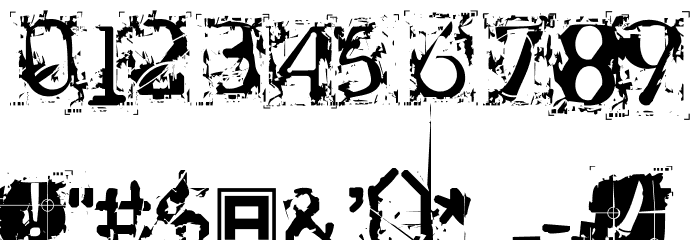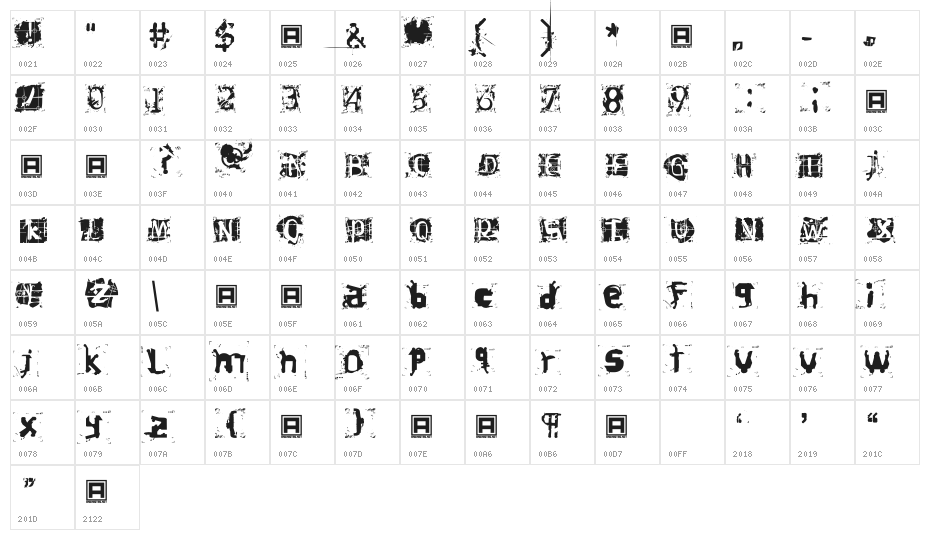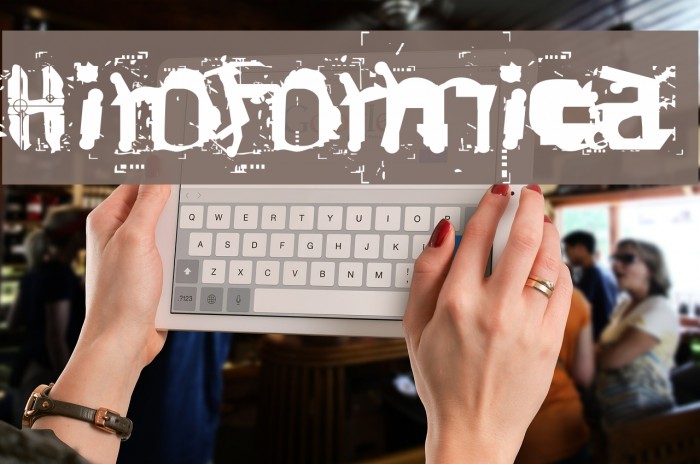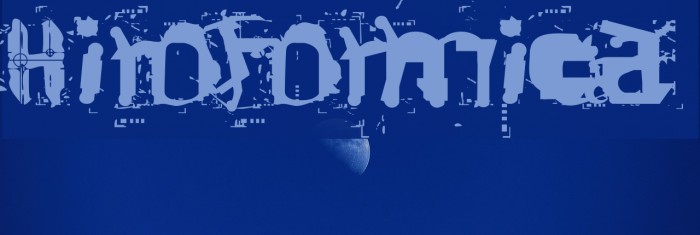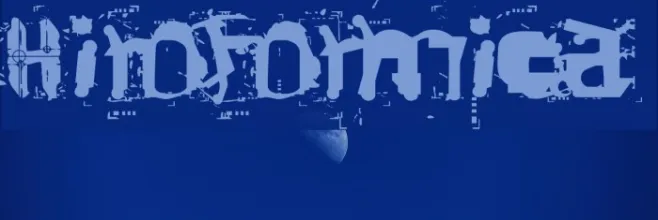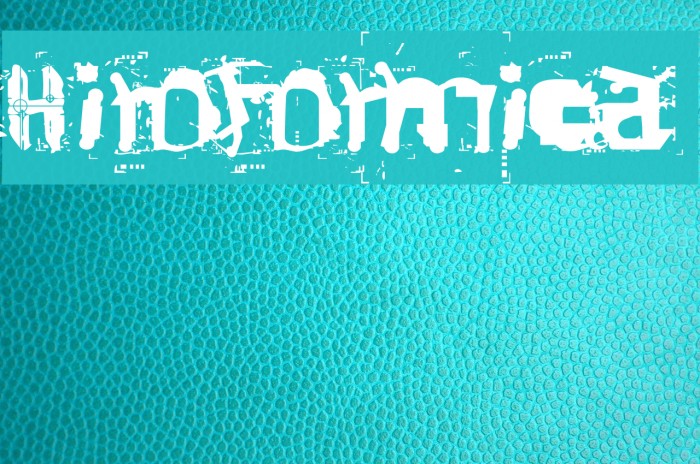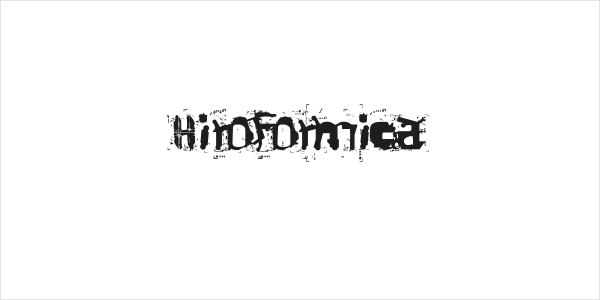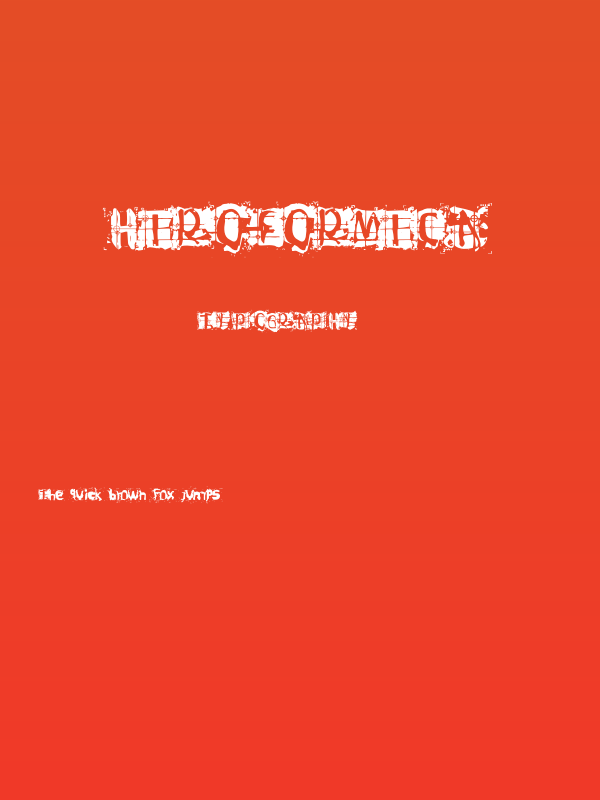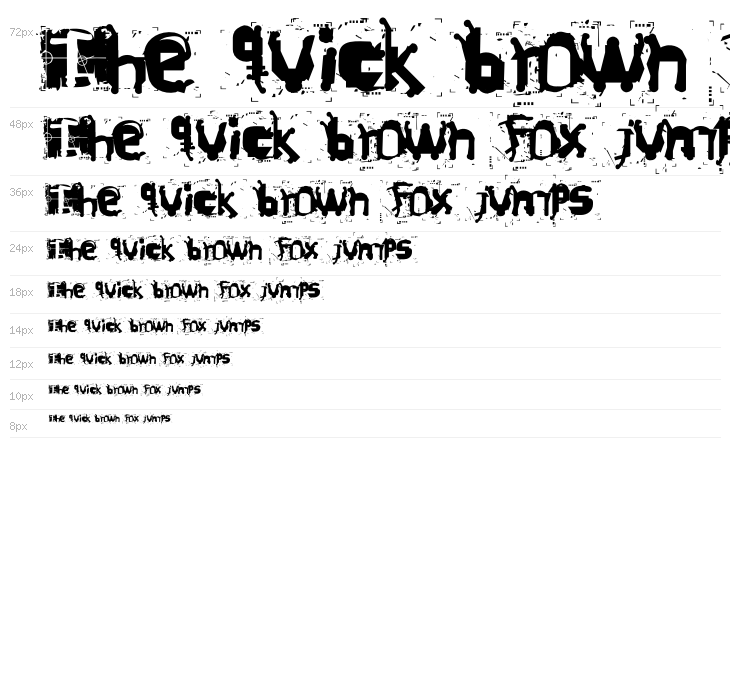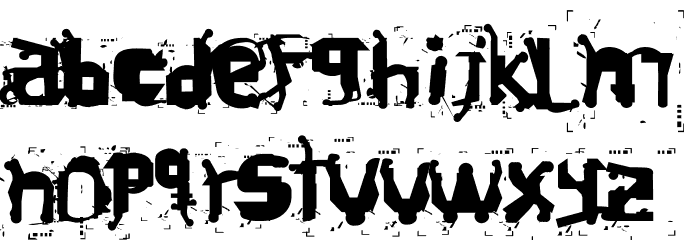
Hiroformica Font
Hiroformica Description
This font features a highly distressed and grungy appearance, with each character appearing as if it has been roughly sketched or painted. The letters are irregular and fragmented, giving a chaotic and edgy feel. The uppercase and lowercase letters maintain this distressed style, with uneven lines and a sense of movement. Numbers and special characters follow the same aesthetic, contributing to an overall look that is both artistic and rebellious. The font's unique style makes it stand out, perfect for projects that require a bold and unconventional design.
Overall StyleGrunge, Artistic, Rebellious
Use CaseLogos, Posters, Album covers
Proposed ProjectsIdeal for album covers, street art-inspired designs, edgy posters, and alternative branding.